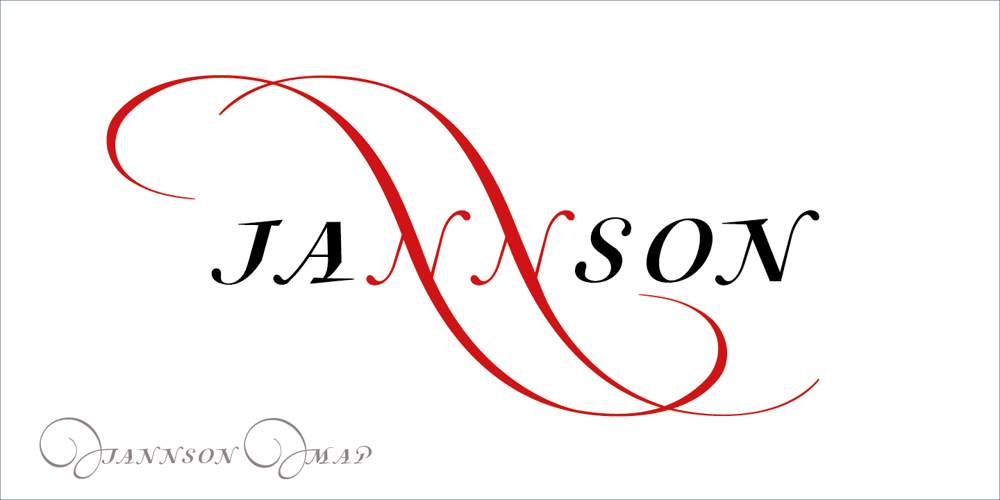
Jannson Map Font Family was designed by Antonio Vignali and published by RM&WD. Jannson Map contains 2 styles and family package options. For best results, use of OpenType features is strongly recommend.This font is inspired by Johannes Janssonius, well know as Jan Janszoon o Jan Janssonius (Arnhem, 1588 – Amsterdam, 1664), was a Dutch cartographer, publisher and engraver. Married to Hondius’s daughter. He was the author of many masterpieces of cartography of the 1700s like Willem Blaeu and Hondius, famous maps with heavy use of decorations in the letterig to fill the spaces of oceans, seas, lakes and scrolls. Now you can easily recreate not just ancient maps without effort, but you can use this font creatively, to make unique, modern logos, product names, fresh packaging, hip fashion outfits, refined labels, signs, coordinated images … Hundreds of alternatives to choose from and maybe to combine with other fonts in an original way.One extra font with 27 castles in Janszoon style are also usefull for map, of course, but also for many different creative artworks.Warning: Jannson Map having oversized swashes compared to the normal standards cannot be used with Windows Word because Word does not give the possibility to manage the line spacing professionally.Jannson Map works great with applications like Illustrator, In Design, quark Xpress, mac Text etc …